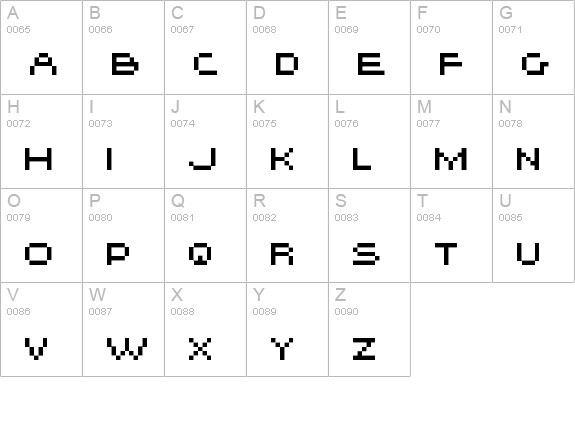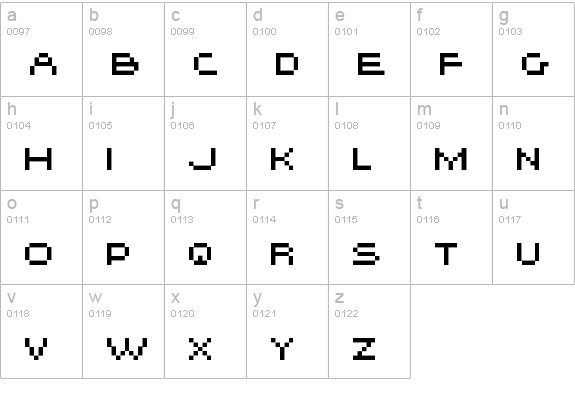
The HISKYFLIPPERHI font is a unique and eye-catching display font that will make your designs stand out. With its playful and modern style, this font is perfect for projects that require a touch of creativity and originality. The combination of bold strokes and whimsical details gives HISKYFLIPPERHI a fresh and dynamic look that will appeal to a wide range of audiences. Best of all, HISKYFLIPPERHI is available for free! You can easily download this font at FontsMarket.com and start using it in your projects right away. Whether you're designing posters, logos, social media graphics, or any other type of creative content, HISKYFLIPPERHI will add a fun and energetic vibe to your work. Don't miss out on this fantastic opportunity to enhance your designs with this amazing font!